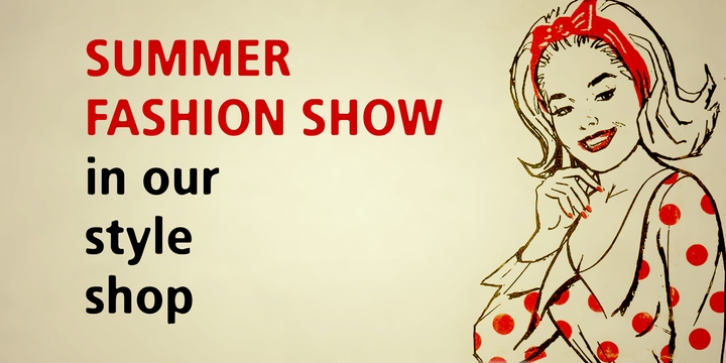
Beatboy is a modern looking font in regular and oblique weight. The rounded & smooth finish provides it a warm appearance, making the Beatboy typefaces nicer and nearby. The “Beatboy typeface” is ideally suited for advertising and packaging, shirts, fashion, posters, editorial and publishing, logo, branding and creative industries, headers, headtext and billboards & screen design. Beatboy is the perfect font for all your graphic work!